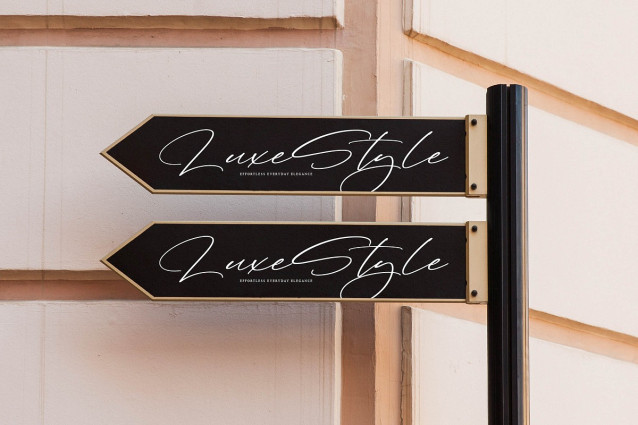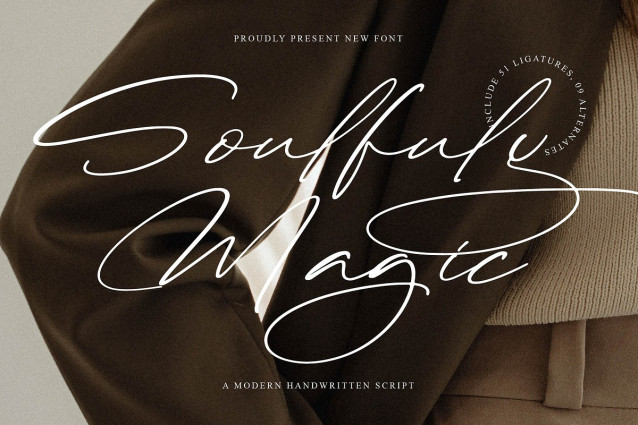
Soulfuly Magic Font
Soulfuly Magic – A Handwritten Script, from Operatype, perfect for any project like: logos, branding projects, homewares designs, product packaging, mugs, quotes, posters, shopping bags, t-shirts, covers books, business cards, invitation cards, greeting cards, labels, photography, watermarks, special events and all your other luxury projects that require a premium taste.